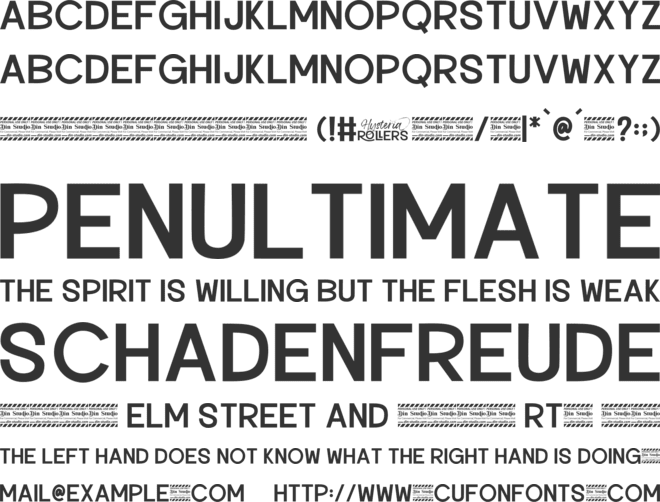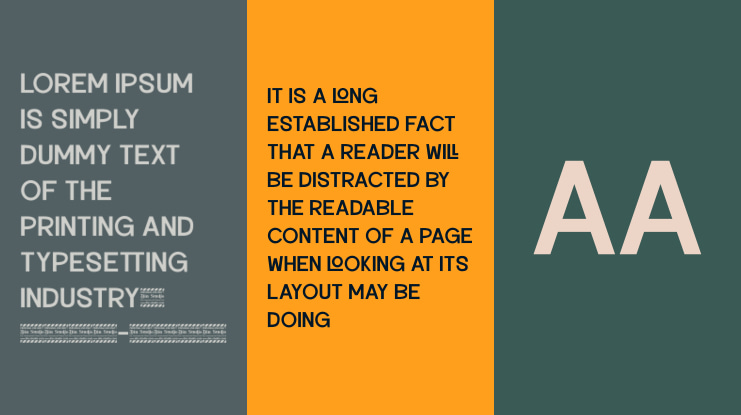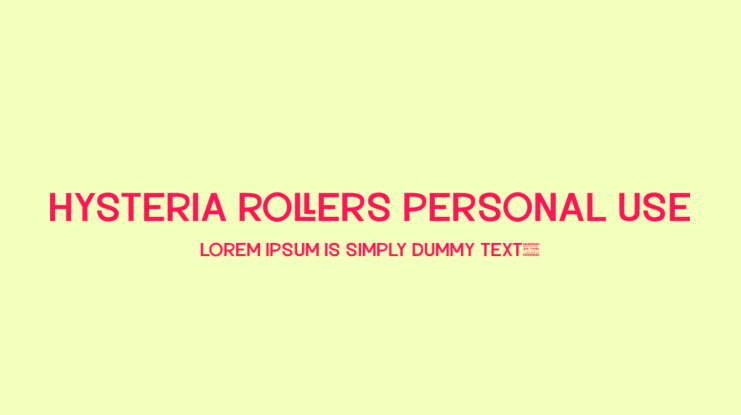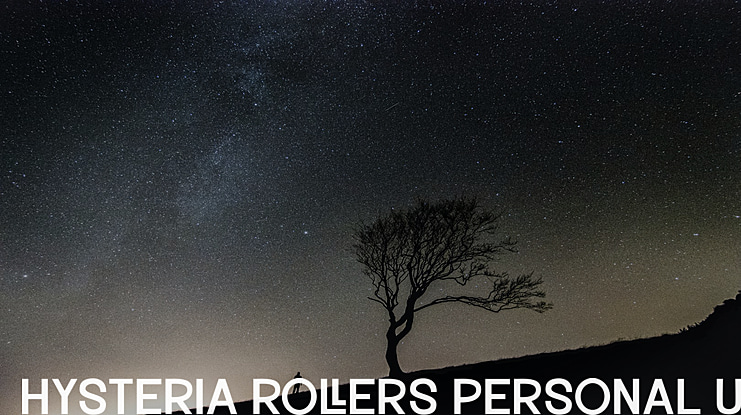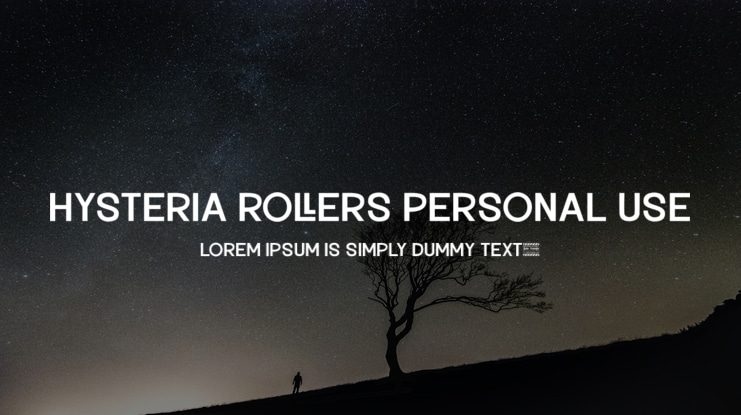
Hysteria Rollers is a fantastic font duo. An uppercase sans serif font is accompanied by a gorgeous handcrafted script brush font that works together in perfect harmony.